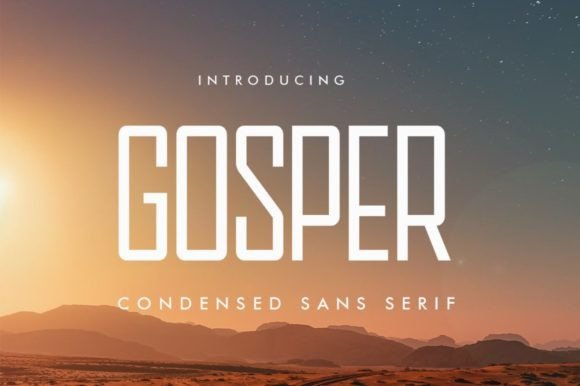
Unleash your creativity with Gosper, the font that effortlessly blends futuristic charm with modern elegance. Its unique lowercase letters add a touch of individuality to your designs, bringing them to life with a captivating aura of the future.
Immerse yourself in the world of logos, branding, and marketing with Gosper, the font that embodies innovation and progress. Bold, sleek, and simply unforgettable, it's the perfect choice for those seeking to make a lasting impression.
With Gosper, you have a font that embodies the spirit of the modern age. Its versatility knows no bounds, allowing you to craft captivating designs that span a wide range of industries. From bold headlines that command attention to delicate details that intrigue the eye, Gosper seamlessly adapts to your creative vision.
As you explore the realm of creativity with Gosper, you'll discover a font that is not just a collection of letters, but a gateway to a world of boundless possibilities. Its unique lowercase characters are not merely letters; they are statements of style and personality, ready to elevate your designs to new heights of sophistication.
Join the league of creative visionaries who have embraced Gosper's captivating allure. Embrace the future and usher in an era of innovation and style. Whether you're a seasoned designer or just starting your creative journey, Gosper is the key to unlocking your true potential.